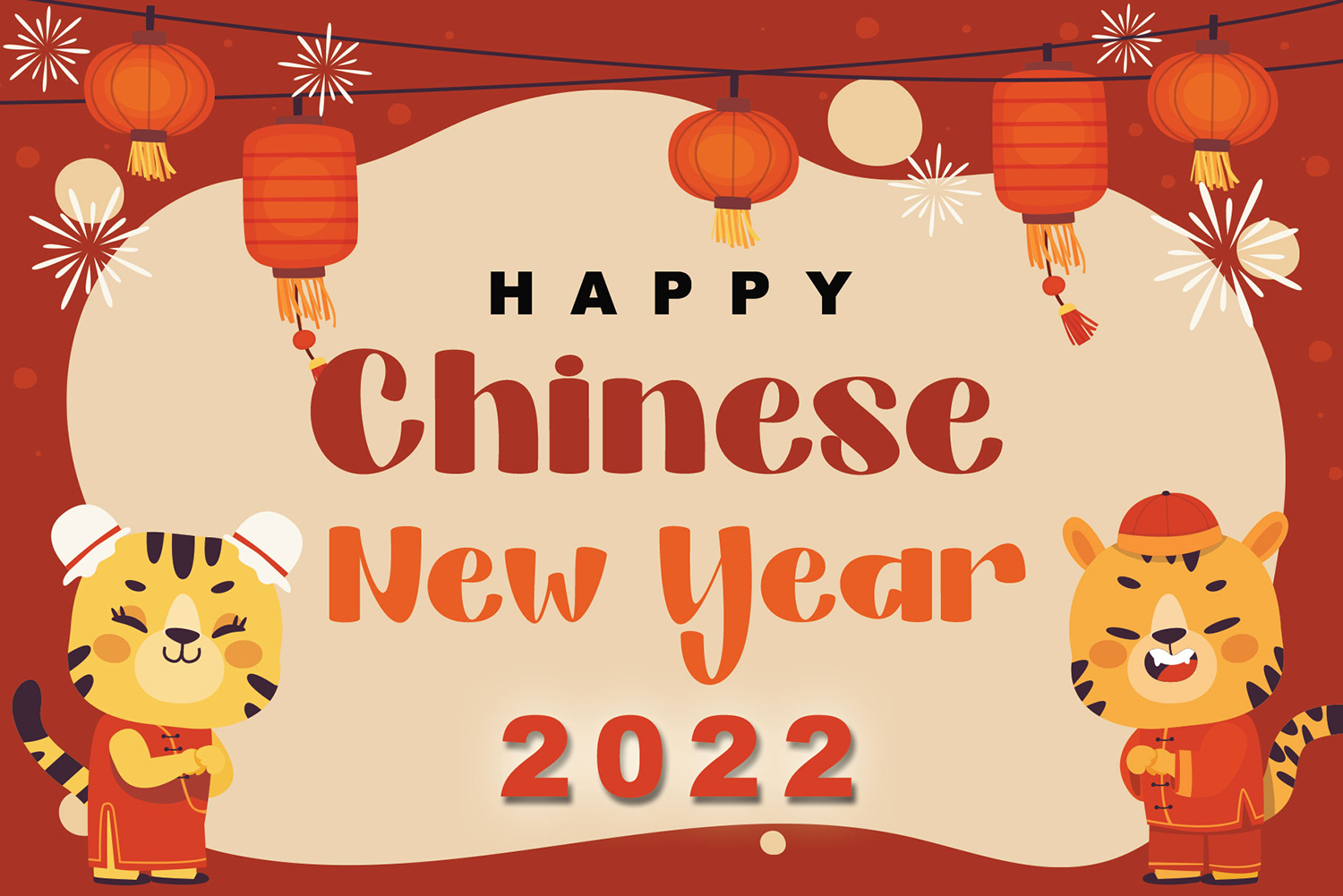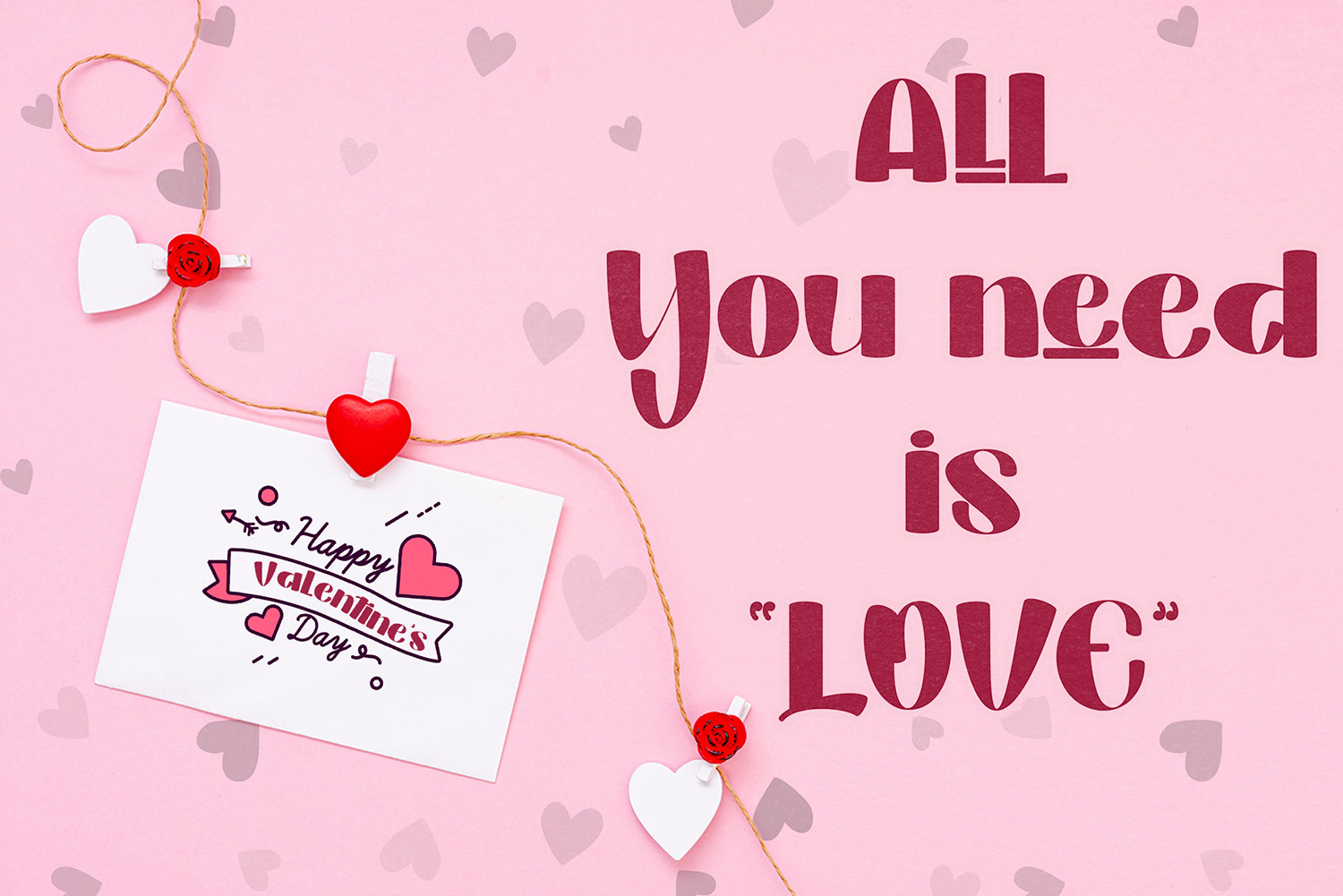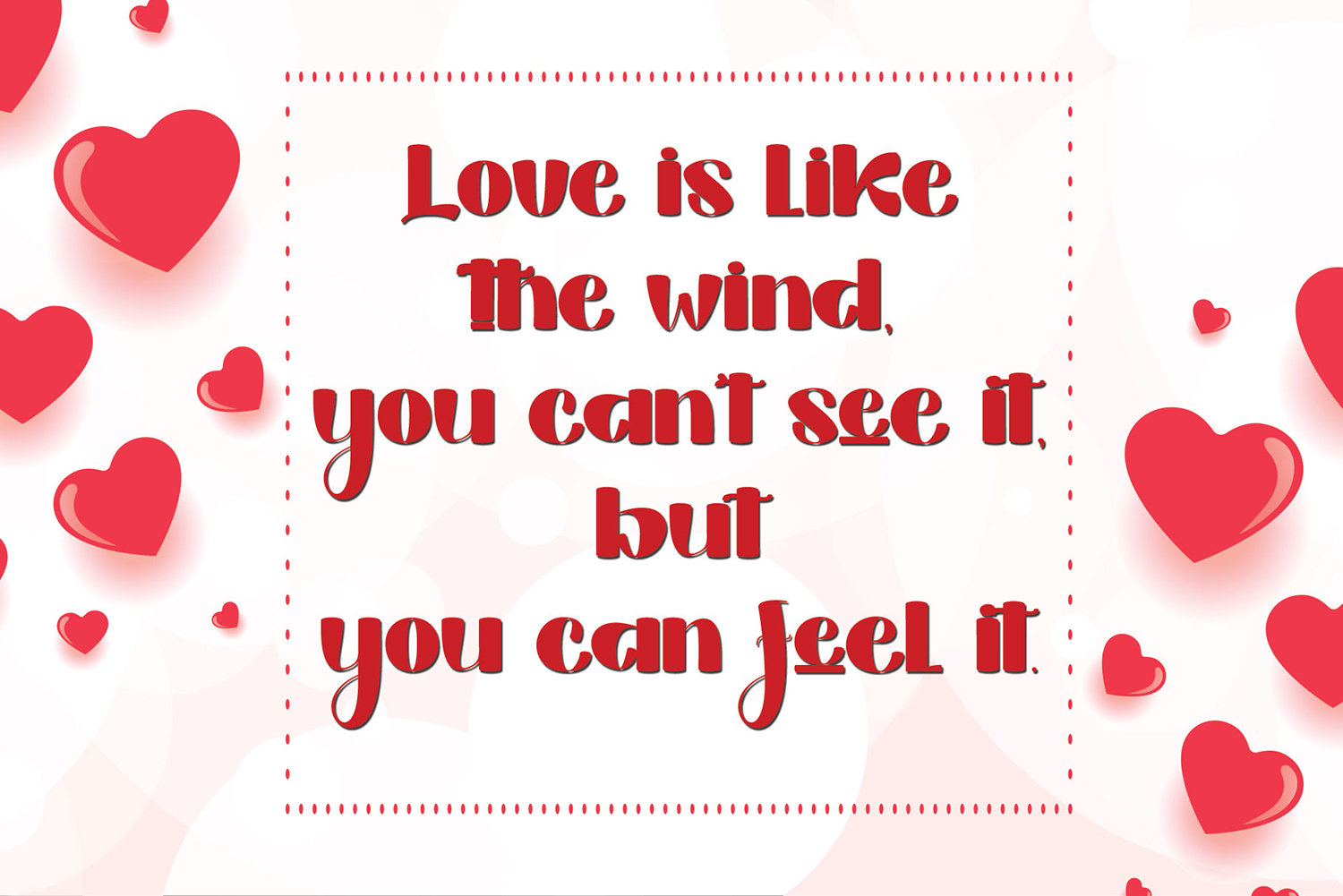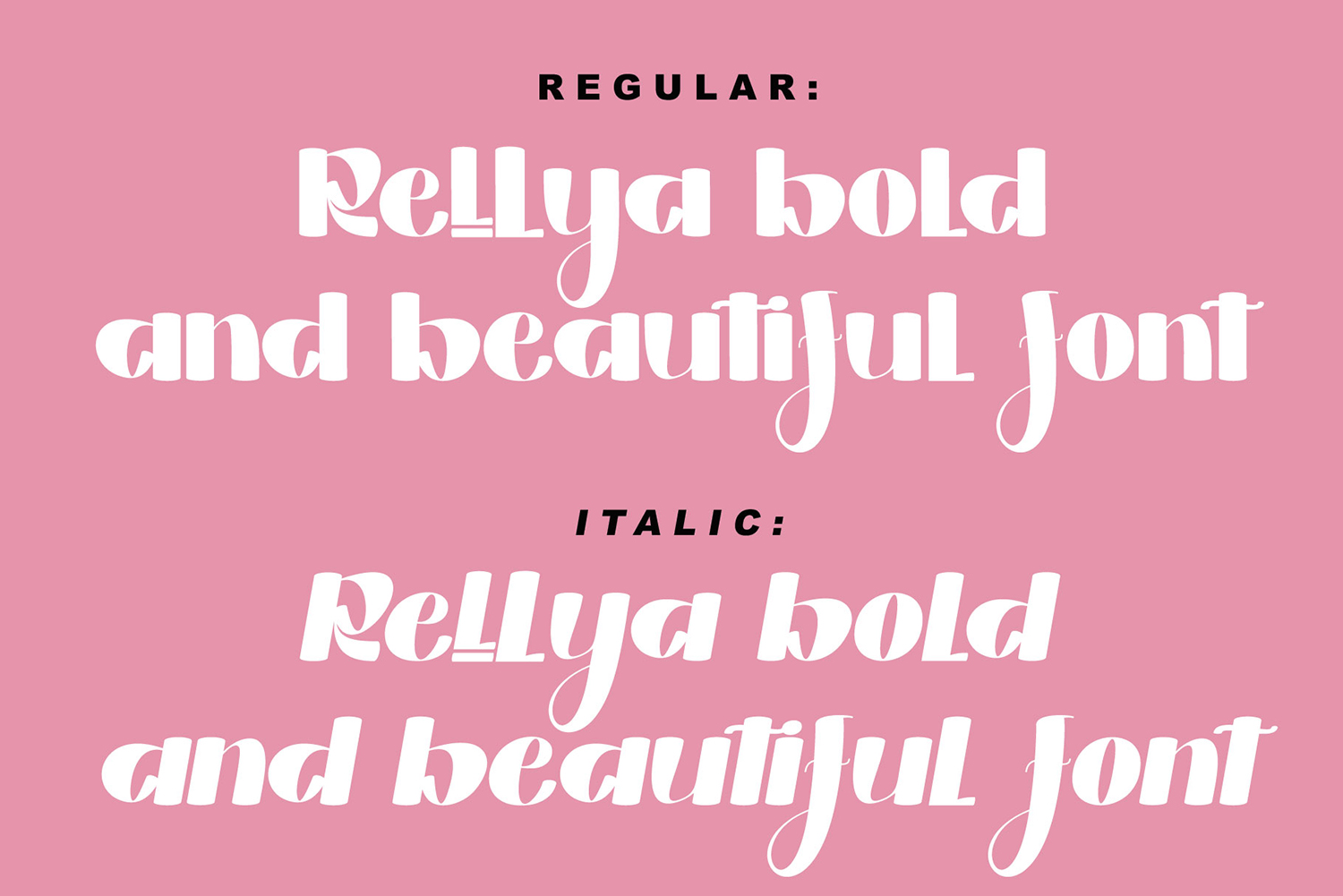
Rellya Free Font
Rellya Free Font embodies a unique and captivating display font, designed to leave a stunning impression on all your creative endeavors. This free typeface was designed by a talentedΒ Harjuno Kristanto. If you like it don’t forget to check out the full version.